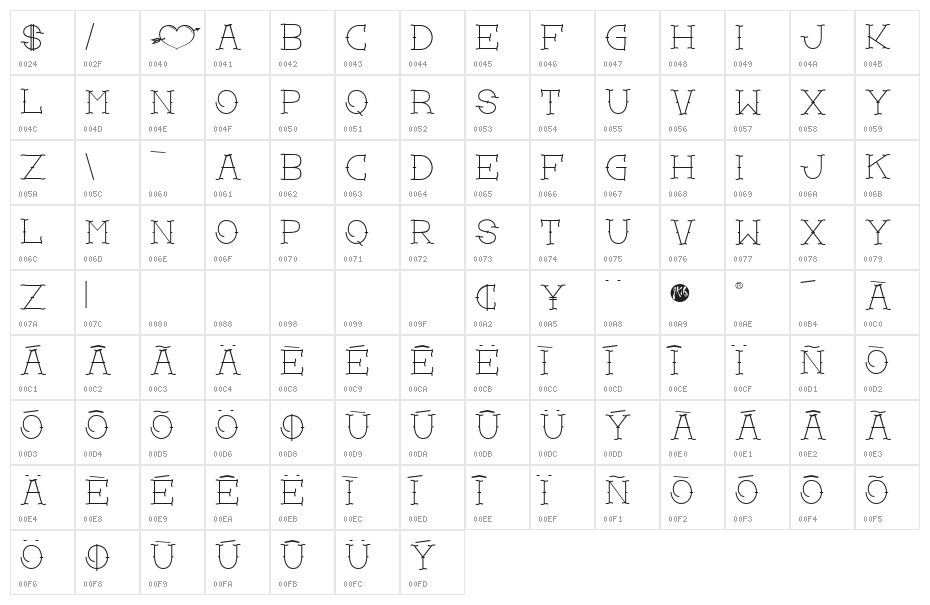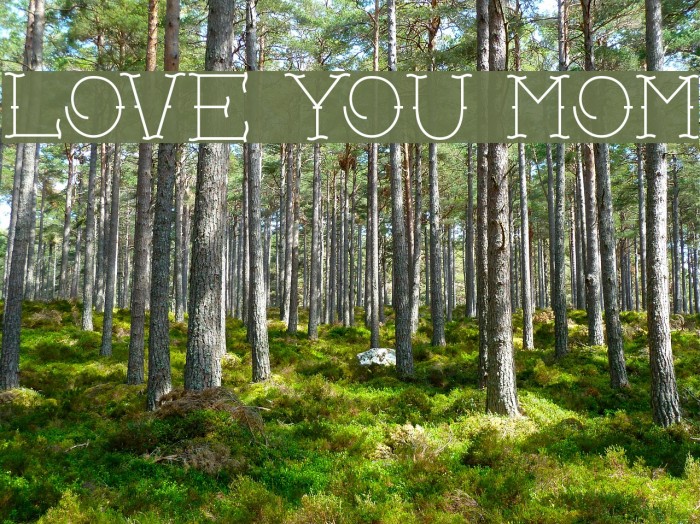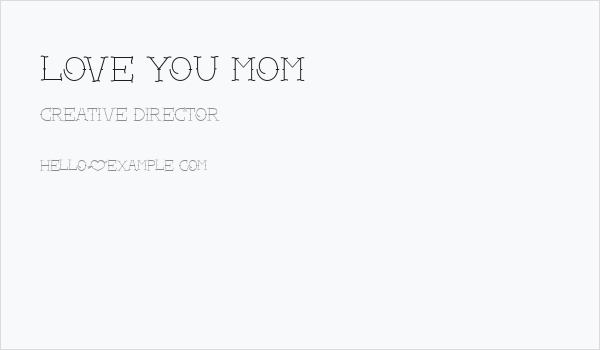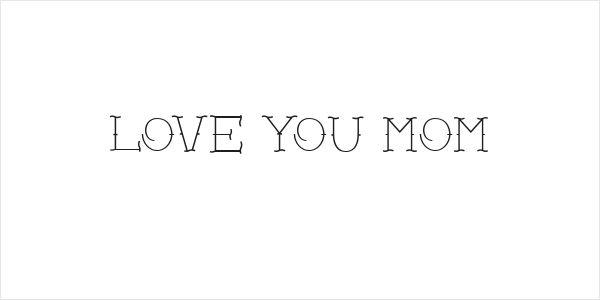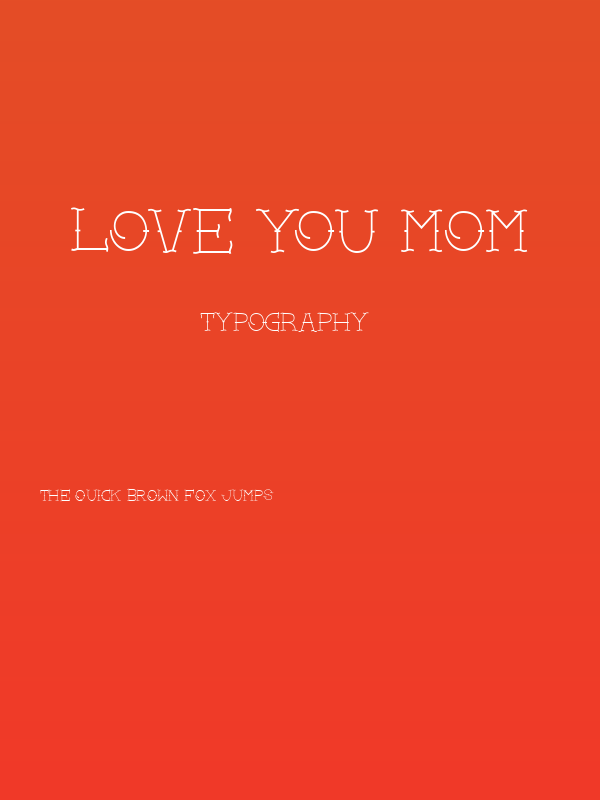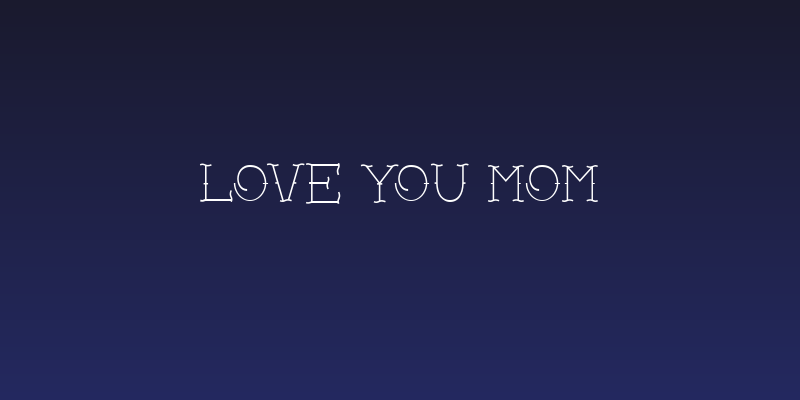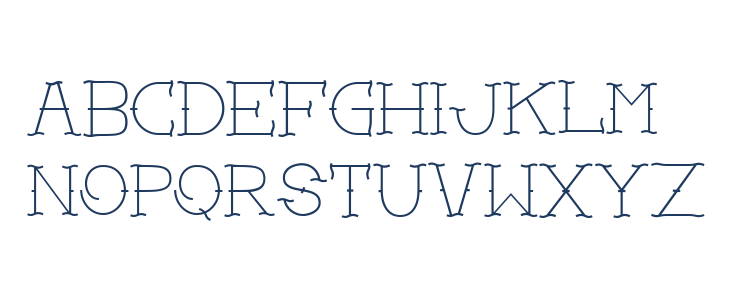
Love you mom Font
Love you mom Description
This font features a unique and decorative style characterized by its thin, elongated strokes and distinctive serifs that resemble small hooks or anchors. The uppercase letters are uniform in height, with a consistent vertical alignment that creates a cohesive appearance. The font's design incorporates a nautical or maritime theme, evident in the anchor-like serifs and the overall structure of the characters. The spacing between letters is moderate, allowing for readability while maintaining its decorative appeal. This font is particularly suited for projects that require a touch of elegance and creativity, such as invitations, branding, or themed events.
| Proposed Projects | Ideal for invitations, branding, themed events, and creative projects. |